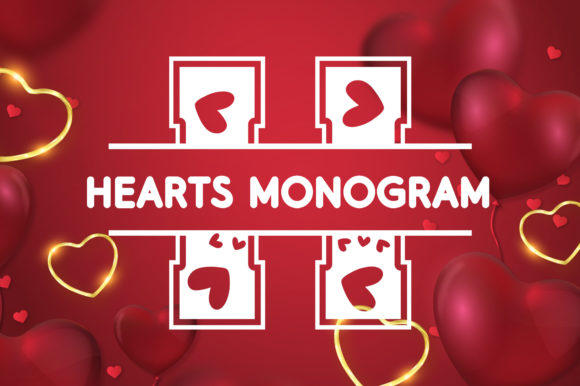
Dive into the world of Hearts Monogram Font, a decorative display font that exudes a trendy and vibrant charm. Created by the ingenious Vladimir Carrer, this font tantalizes with its bold and captivating strokes. It's the perfect font to inject a touch of whimsy and cheerfulness into your creative projects.
Hearts Monogram shines as the ultimate choice for casual or informal designs. Its unique style dances across any design, adding a touch of playfulness and individuality. Whether you're crafting logos, invitations, social media posts, or packaging, this font guarantees to leave a lasting impression.
But what sets Hearts Monogram Font apart is its versatility. Its bold and chunky letters lend themselves effortlessly to a wide range of projects, from playful branding to eye-catching headlines. It's a font that commands attention, inviting your audience to embark on a journey of creativity and fun.
So, unleash your imagination and let Hearts Monogram Font be your creative companion. Dive into a world of endless possibilities, where designs come alive with personality and charm. Experience the joy of crafting projects that resonate with your audience, leaving them enchanted and inspired. Embrace the Hearts Monogram experience today and witness the transformation of your designs.